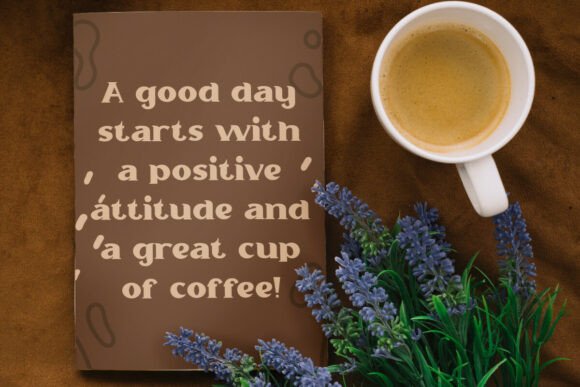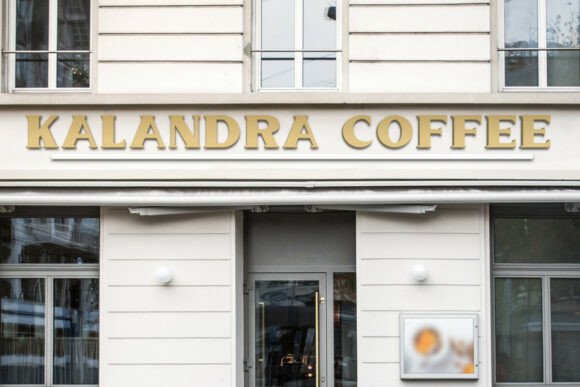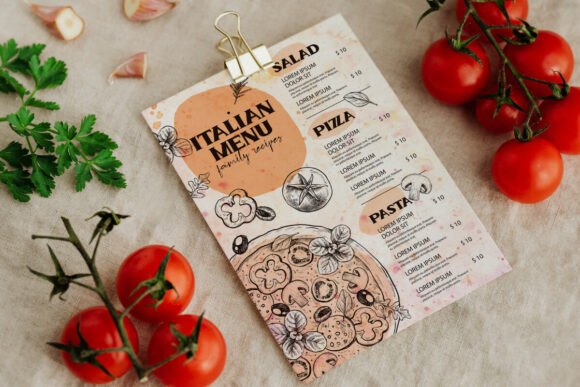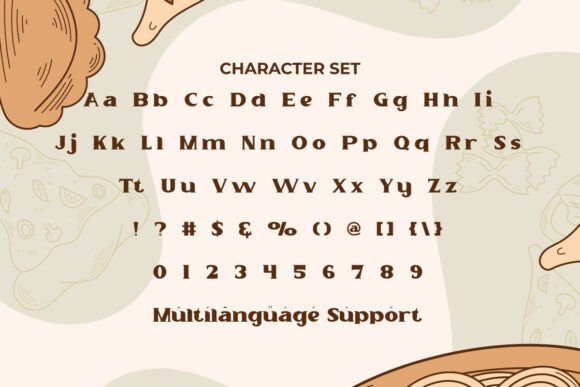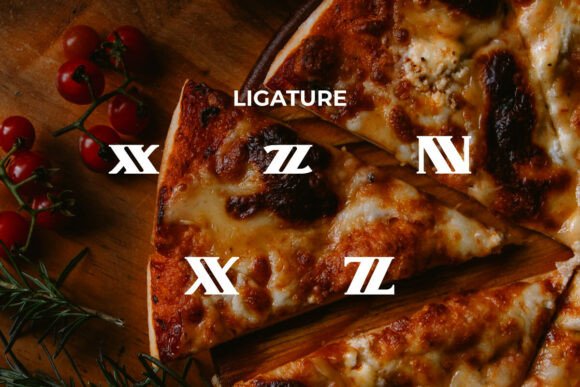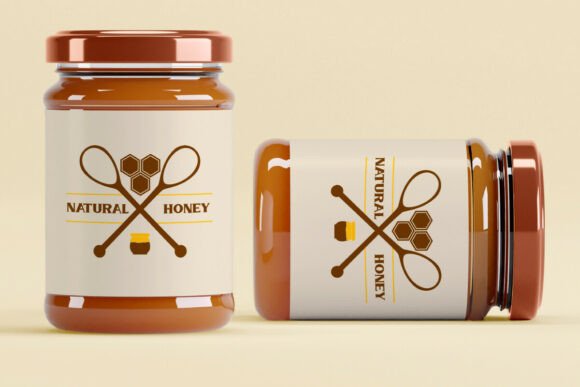
A Deliciously Designed Font: The Caramel Pizza Font
There’s something special about walking into a cozy bakery on a crisp morning, surrounded by the sweet aroma of freshly baked goods. The moment you spot the charming font used on their logo or packaging, you know you’re in for a treat. For designers, that perfect blend of style and warmth is exactly what the Caramel Pizza Font offers.
This inviting display serif font is specifically designed for food branding and cozy projects, with a playful take on classic serif structure that softens the edges and uses thick, friendly strokes to create a warm, organic feel. The generous spacing and substantial weight ensure high legibility while retaining its casual, hand-drawn appeal.
Caramel Pizza Font Key Features
• Font Family: Caramel Pizza Font is a unique, hand-drawn font designed to resemble melted caramel on a pizza.
• Unique Characteristics: Features a distinctive, swirly design with varying line widths, creating a dynamic and eye-catching effect.
• Style Variations: Includes multiple styles, such as Regular, Bold, Italic, and Bold Italic, to add versatility to your designs.
Caramel Pizza Font Review
First impressions are everything, and I was intrigued by the unique name of this font. Upon closer inspection, I found that Caramel Pizza Font ✨ has a playful, whimsical feel to it. The rounded edges and soft curves evoke a sense of warmth and approachability. It’s perfect for designs that need a friendly, inviting vibe.
One of the standout features of this font is its versatility. It works well for a range of applications, from children’s books to food labels, and even some advertising materials. It’s also surprisingly legible, even at smaller font sizes. ✨ Another advantage is that it’s relatively easy to read in both uppercase and lowercase letters.
While Caramel Pizza Font has its strengths, it’s not without its limitations. For one, it’s not ideal for formal or professional contexts. The playful feel may come across as immature or unprofessional in certain situations. ⚠️ Additionally, the font may not be suitable for designs that require a strong, bold statement. It’s best used in a more subtle or whimsical capacity.
Overall, I think Caramel Pizza Font is a solid choice for designers who need a friendly, approachable font. While it may not be the best fit for every project, it’s a great option for those looking for a unique, playful feel.
• Playful, whimsical feel
• Soft curves and rounded edges
• Relatively easy to read
• Works well for a range of applications
• Not ideal for formal or professional contexts
Some common use cases for the Caramel Pizza Font include:
1. Food blogs and recipes.
2. Social media graphics and advertisements.
3. Restaurant menus and branding.
Some tips for getting the most out of the Caramel Pizza Font include:
1. Use it to add a playful touch to your designs.
2. Pair it with other fonts for a unique and eye-catching combination.
3. Experiment with different sizes and colors to create a visually appealing design.
Alternative Font Options to Caramel Pizza Font